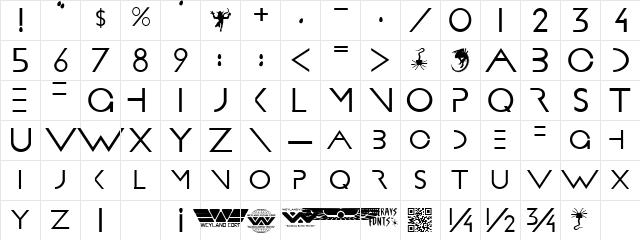
PROMETHEUS Regular
Design Context for PROMETHEUS Typeface
PROMETHEUS is a composed and adaptable typeface that performs quietly and consistently across a wide range of design contexts.